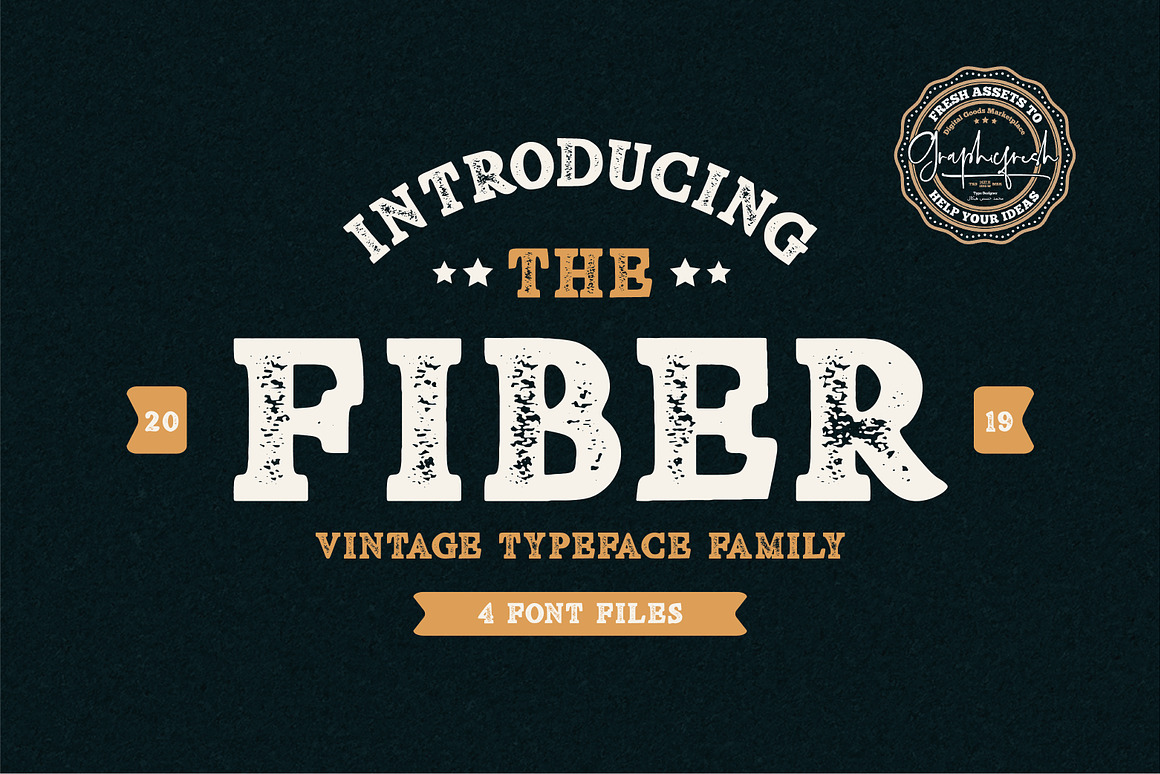
Fiber - Vintage Serif Font
Fiber - Vintage Serif Font is perfect for artisan textile brands, heritage craft workshops, traditional weaving studios, vintage clothing labels, handmade product packaging, rustic home décor branding, authentic craft materials, heritage textile museums, traditional fiber art galleries, and nostalgic sewing shop signage.
What makes Fiber - Vintage Serif Font so exciting is its extraordinary ability to weave together the rich heritage of textile craftsmanship with vintage typography through letterforms that seem spun from the finest threads and aged by generations of skilled artisan hands. This textural typeface captures the essence of traditional fiber arts and handcrafted textile heritage with characters that radiate the warmth, authenticity, and time-honored quality that defines genuine artisan craftsmanship. The font's woven design elements perfectly balance vintage textile aesthetics with contemporary readability, creating an indispensable tool that communicates craft authenticity, heritage quality, and artisan expertise, making it essential for brands celebrating the timeless art of fiber crafts and traditional textile creation.
Fiber - Vintage Serif Font comes in multiple font families including Regular, Bold, Light, Italic, Bold Italic, Woven, Textured, and Heritage variations. Each family member maintains the core textile characteristics while offering different craftsmanship levels and vintage approaches to suit various artisan and heritage textile design requirements.
The textile precision in Fiber - Vintage Serif Font makes it particularly effective for craft industries and heritage organizations where conveying authentic textile knowledge and traditional fiber arts expertise is crucial for connecting with audiences who appreciate genuine handcrafted quality and textile artisan skills. Its textured letterforms work beautifully across both traditional craft applications and contemporary artisan marketing materials, maintaining consistent craft authenticity and heritage appeal.
Textile heritage professionals appreciate how Fiber - Vintage Serif Font transforms ordinary craft communications into authentic expressions of textile tradition and artisan excellence. The typeface's crafted character set includes special textile symbols, fiber art elements, and heritage features that enhance the overall artisan atmosphere of any craft-focused project.
For creative professionals serving textile crafts, heritage fiber arts, and handmade textile brands, Fiber - Vintage Serif Font serves as the perfect foundation for establishing memorable visual identities that capture the essential qualities of textile heritage, craft authenticity, and artisan excellence that define successful brands celebrating the enduring beauty and cultural significance of traditional fiber arts and the skilled hands that continue these timeless crafting traditions.